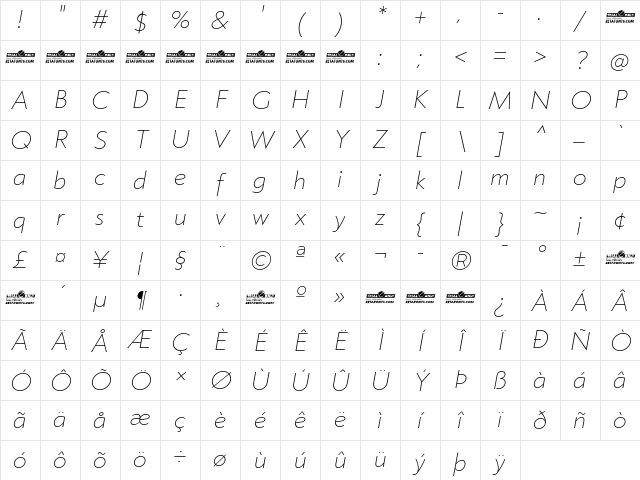
Klein Trial Extralight Italic Free Font
Klein Trial Extralight Italic
Style: Extralight Italic
Foundry: Cosimo Lorenzo Pancini & Francesco Canovaro
Designer: Cosimo Lorenzo Pancini & Francesco Canovaro
Year: 2019
Klein Trial Family
Klein Trial Extralight Italic
Design Context for Klein Trial
Klein Trial is a composed and adaptable typeface that performs quietly and consistently across a wide range of design contexts. The slanted form adds forward momentum and visual energy. Its slender proportions lend an understated elegance to any composition.
Who designed the Klein Trial Extralight Italic font?
This font was published by Cosimo Lorenzo Pancini & Francesco Canovaro. Check the technical specs section for copyright and designer details.